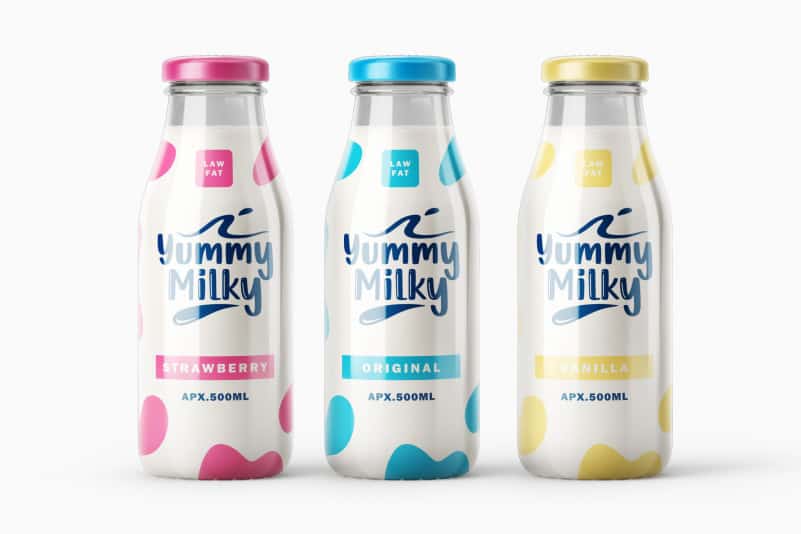
Little Comet Display Font
Little Comet Display Font is a unique and cute display font. Whether you are using it for cartoon-related designs, children’s games, quotes, titles, brand names, book covers, posters, or just any creation that requires a touch of beauty, this font is a great choice.